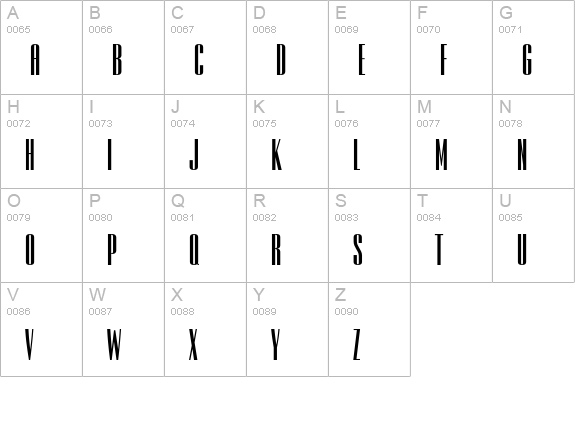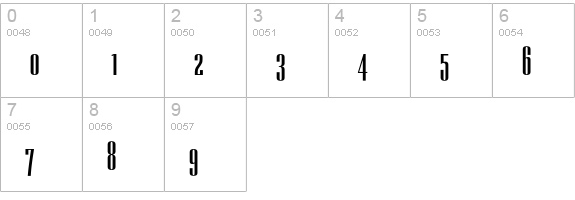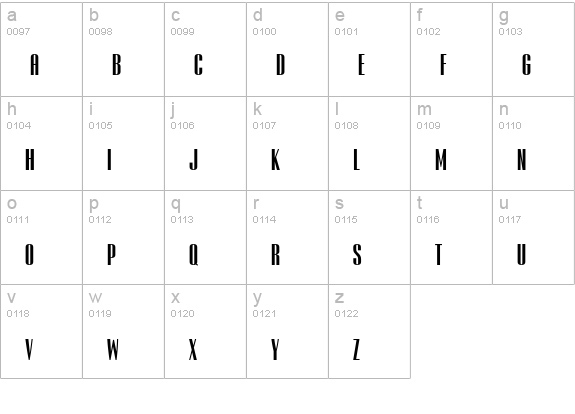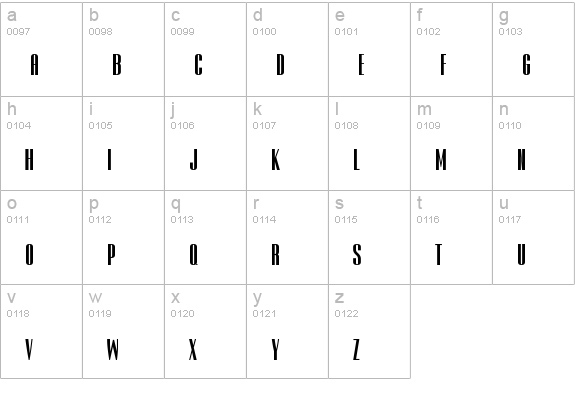
Empire-BlackSmallCaps font is a striking and elegant typeface that exudes sophistication and class. Its sleek design and sharp edges make it perfect for headings, titles, and other attention-grabbing text. The black small caps style adds a touch of modernity while maintaining a timeless appeal. What's even better is that Empire-BlackSmallCaps font is completely free to download at FontsMarket.com. This means you can enhance your projects with this stunning font without any cost, making it a valuable addition to your font collection. Don't miss out on the opportunity to elevate your designs with Empire-BlackSmallCaps font today!